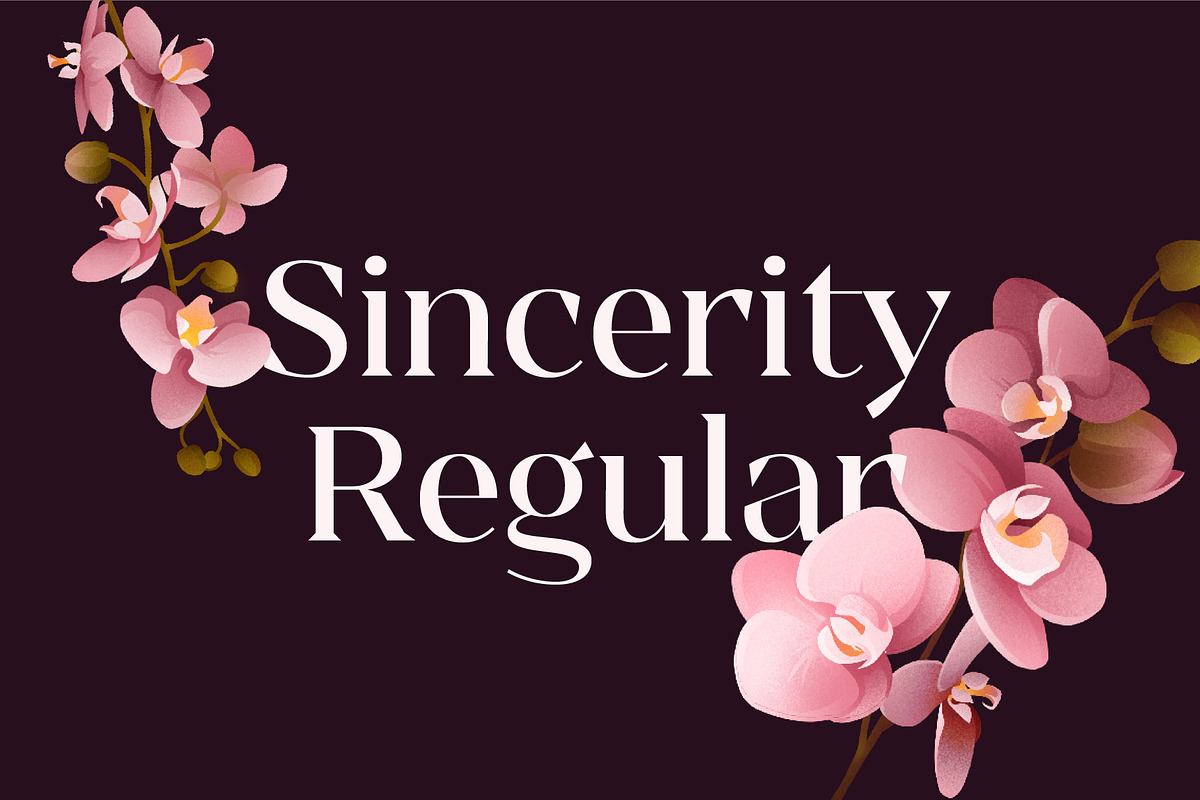
Sincerity Font Regular Free Download is a clean and heartfelt typeface designed to bring simplicity, clarity, and warmth to your visual storytelling. Please note, you are required to purchase this font for commercial use. It is available for free download for testing and personal projects only.
With its smooth curves, balanced proportions, and subtle charm, Sincerity is perfect for branding, quotes, stationery, blog graphics, product packaging, and minimalist designs. It evokes a sense of trust and approachability—making it ideal for lifestyle, wellness, and personal content.
By choosing Sincerity Font Regular Free Download, you're adding a professional-grade font to your creative toolkit. It installs easily and works seamlessly across all major design platforms. Whether you're designing for digital or print, Sincerity delivers elegant readability and a genuinely personal feel.